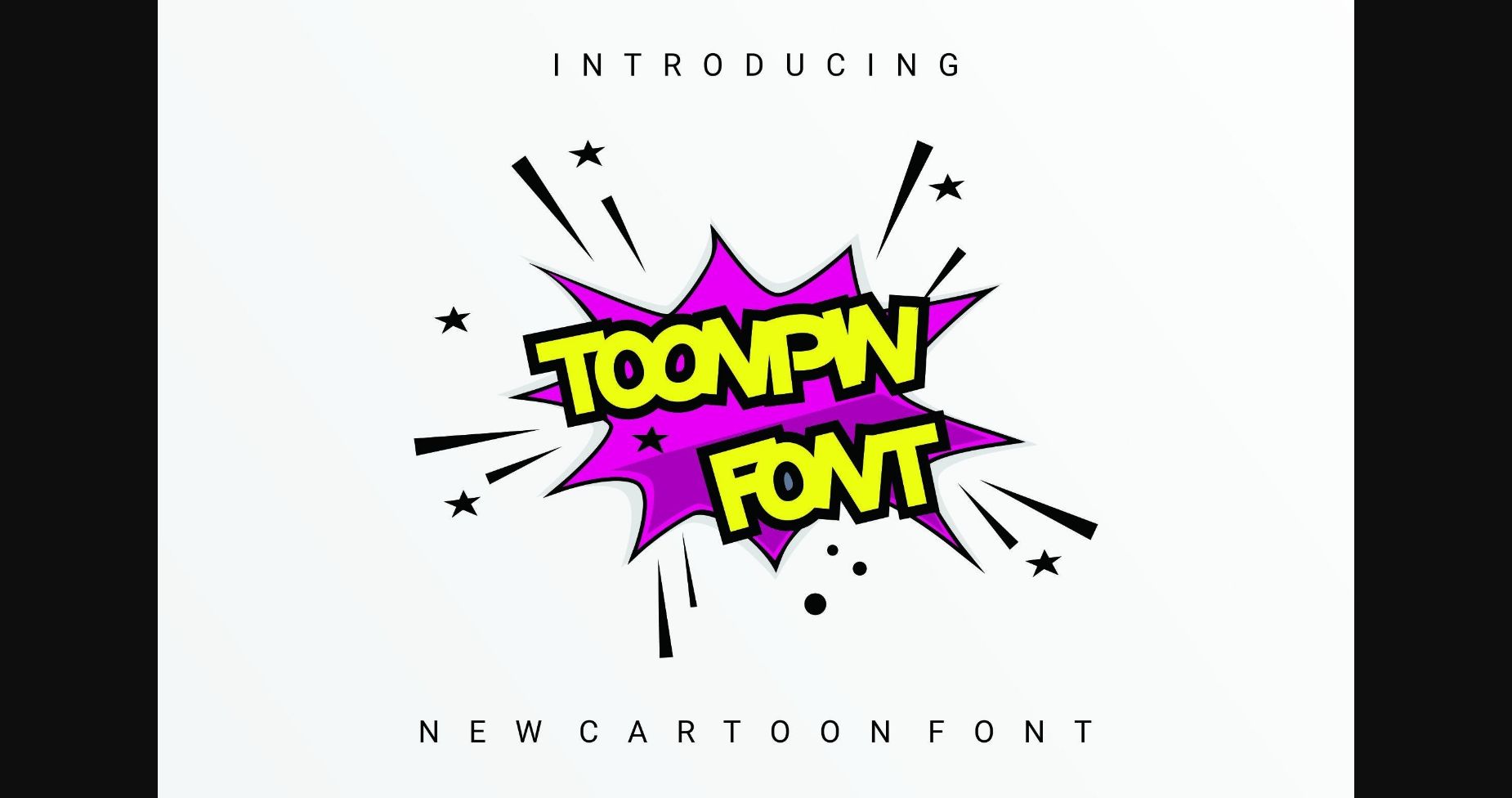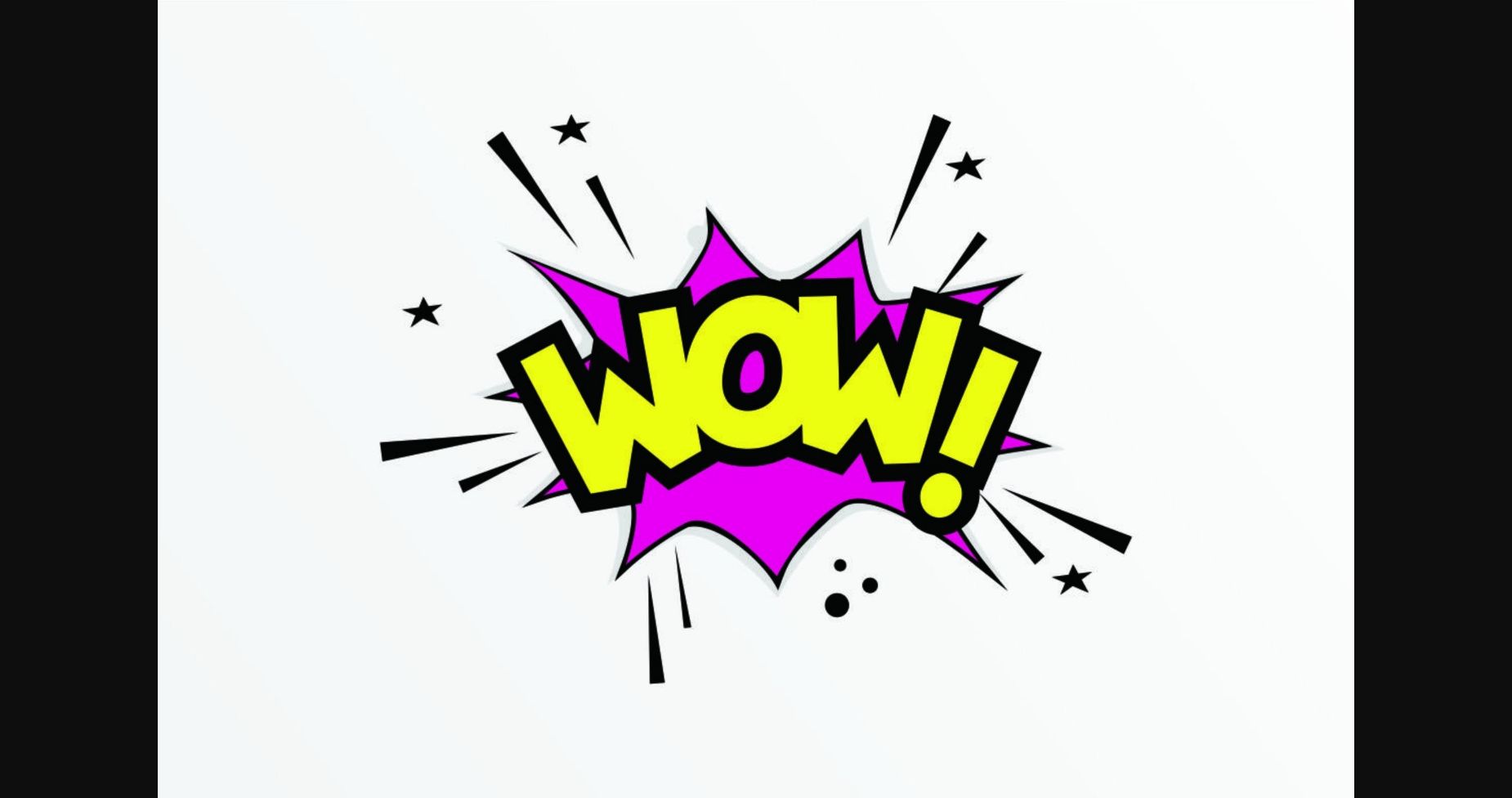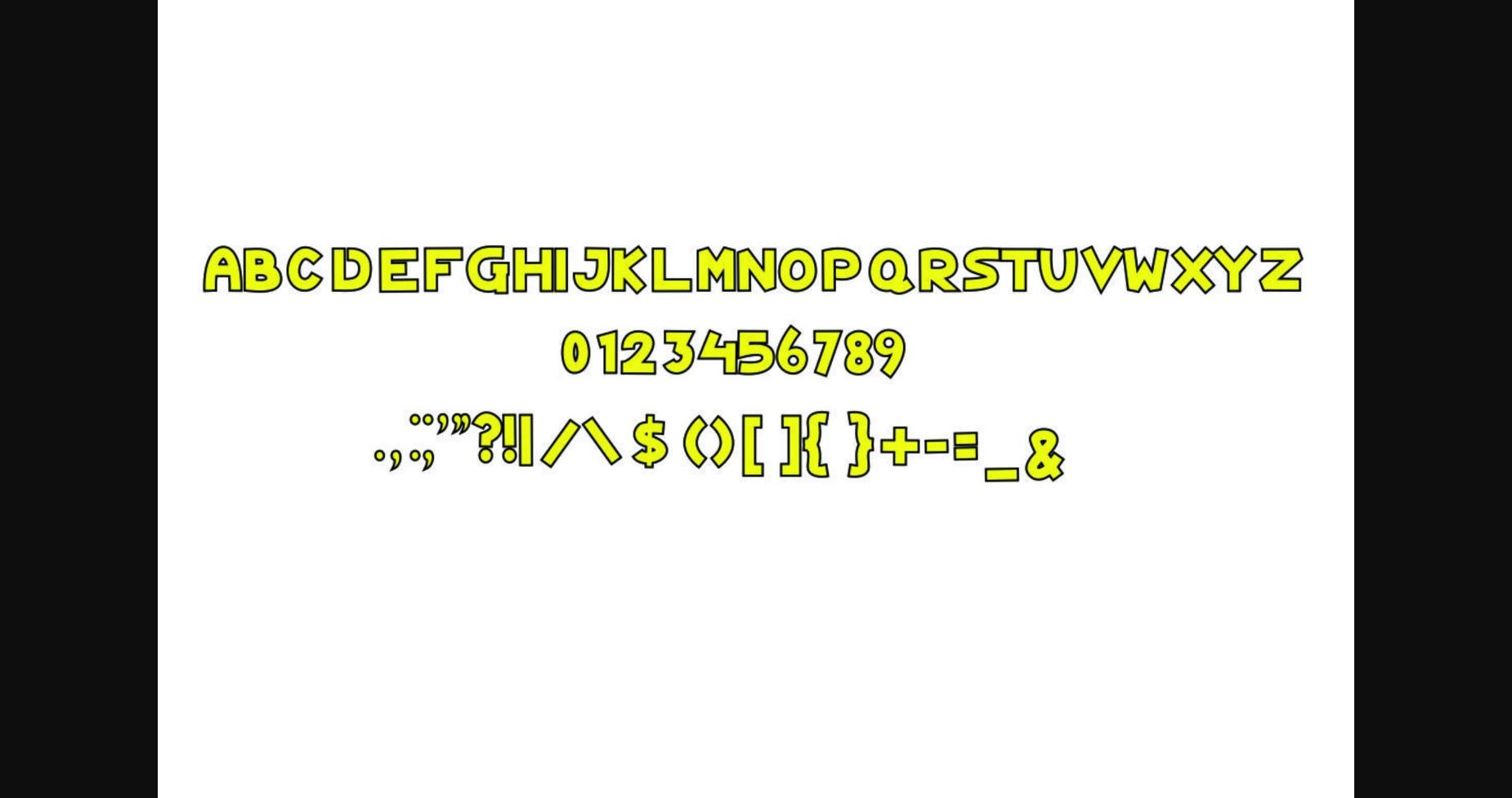
HomeSans Serif FontsToonpin Font Sans Serif Fonts Toonpin Font FacebookXPinterestWhatsApp 1 of 5 ... Toonpin Font Poster 2... Toonpin Font Poster 3... Toonpin Font Poster 4... Toonpin Font Poster 5... About Toonpin Font Toonpin is a modern, bold, and authentic sans serif font suitable for any branding project like logo, t-shirt printing, export, and many more. It looks outstanding in a wide range of contexts. DOWNLOAD NOW People also explored Frambelle Font The Beatle Font Chubpencil Font Avery Font Diamond Font Hopery Font Astel Font Sweety Blue Just King Font 364 0 TagsToonpinToonpin Font Previous articleHélène FontNext articleMorem Font LEAVE A REPLY Cancel reply Comment: Please enter your comment! Name:* Please enter your name here Email:* You have entered an incorrect email address! Please enter your email address here Website: Save my name, email, and website in this browser for the next time I comment. Personal Use Free Kensin Personal Use Free Read more about this font Mounets Personal Use Free Read more about this font Edo SZ Personal Use Free Read more about this font Simple Personal Use Free Read more about this font BLOG Using Fonts in Digital Marketing: Tips to Strengthen Your Brand Identity In the realm of digital marketing, every visual element plays a crucial role in shaping a brand's identity, and fonts are no exception. The... Top 10 Handwritten Fonts That Elevate Your Designs Free vs Paid Fonts: Why Investing in Premium Fonts Is Worth It How to Cut Any Font on Cricut: Convert a Font to SVG (Free)